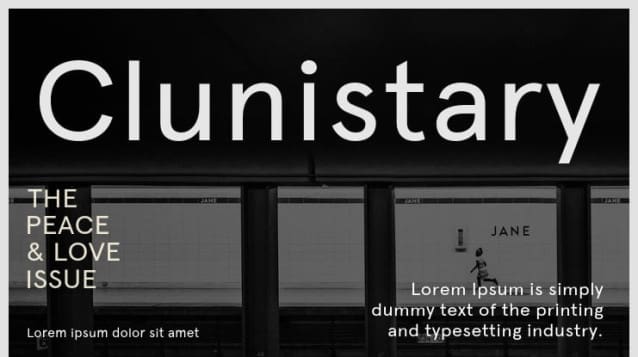
Clunistary Font a bold statement with our latest sans-serif font. With its clean lines and modern appeal, this font is sure to turn heads and leave a lasting impression. Perfect for headlines, logos, and any design that demands attention. It is both functional and stylish, making it a versatile choice for a wide range of design projects.
Clunistary Font
| Classification: | Sans Serif Fonts, Style / Aesthetic Fonts |